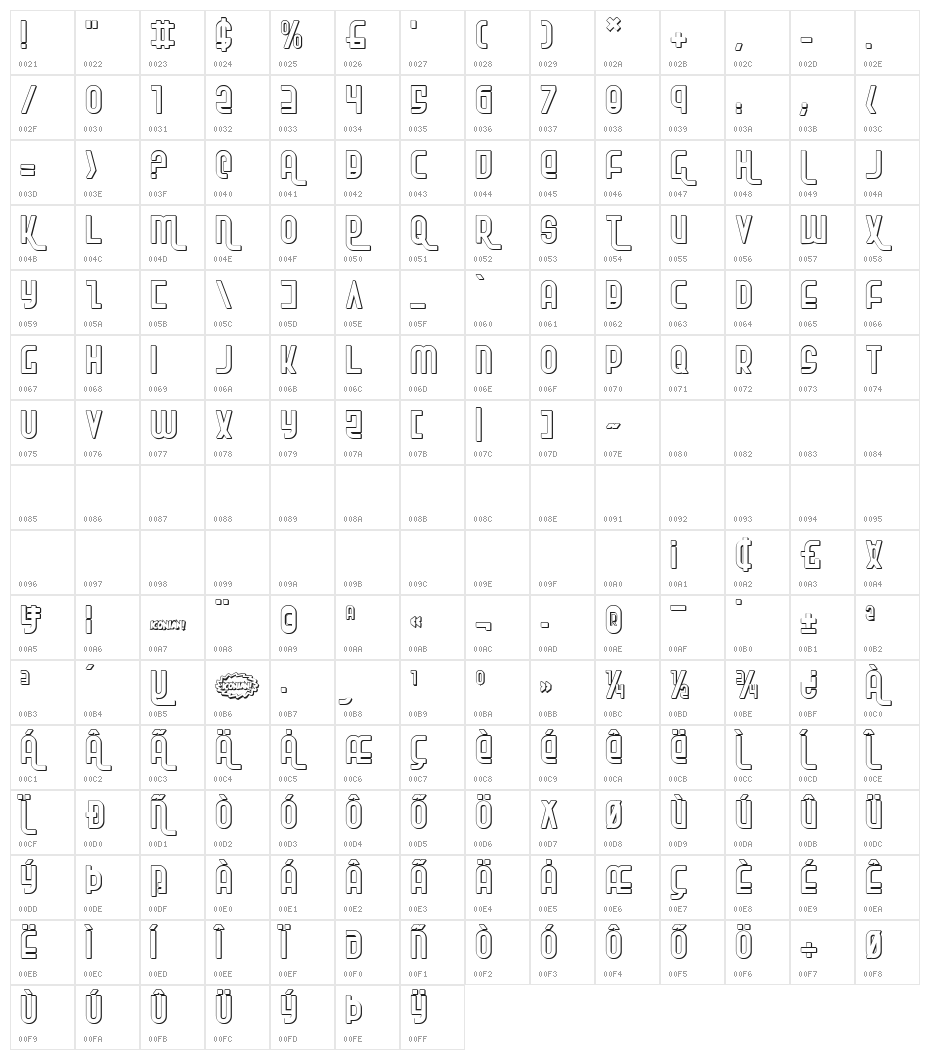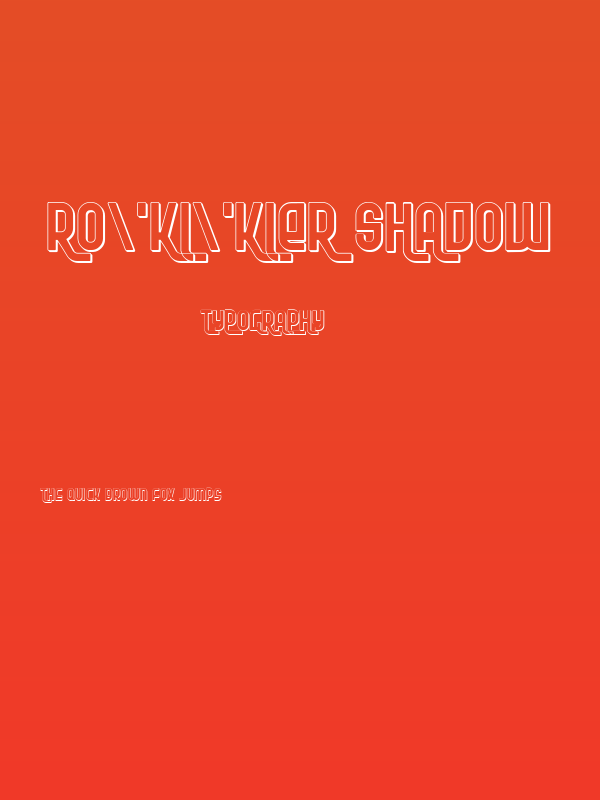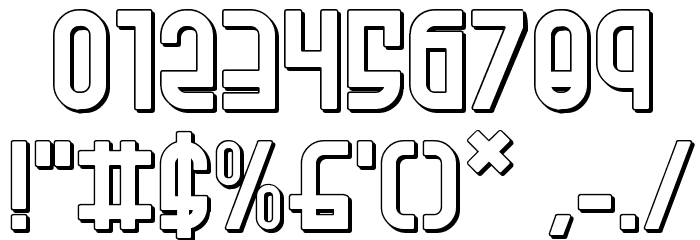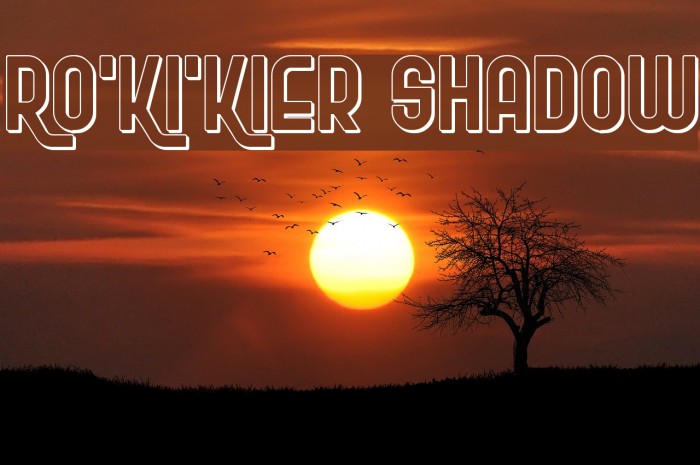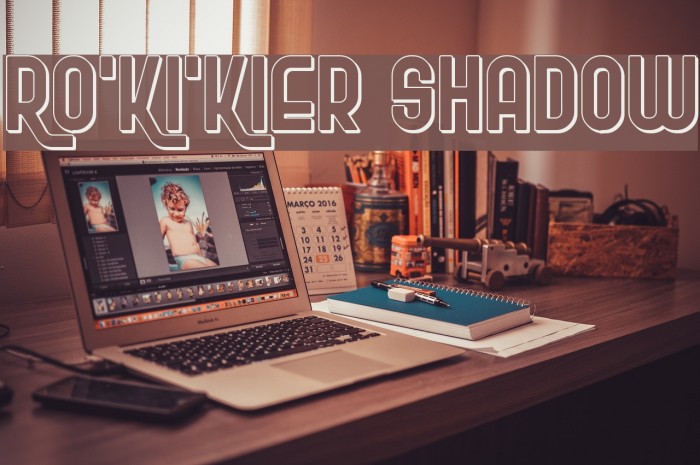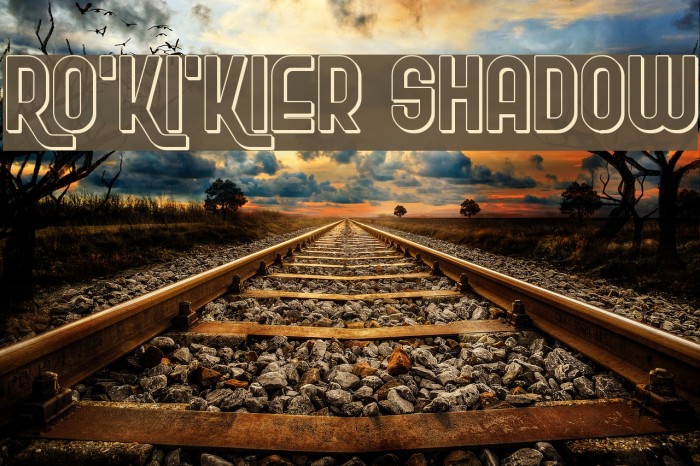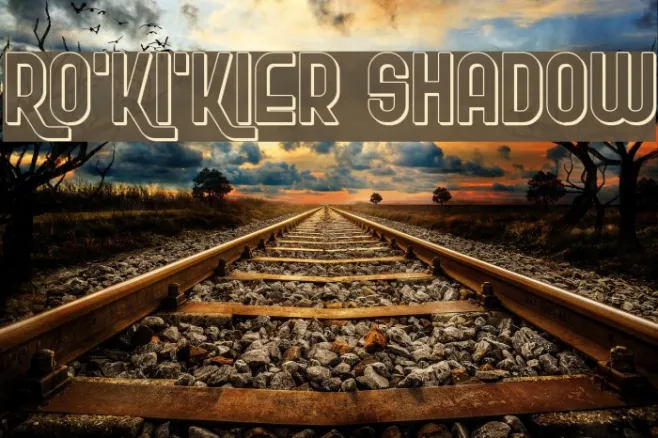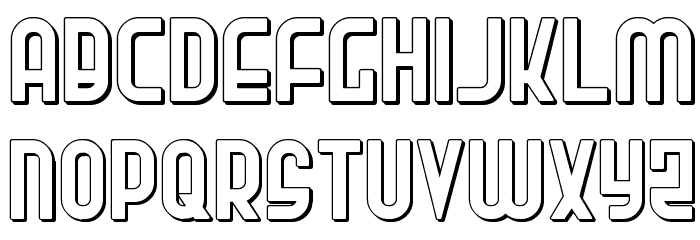
Ro'Ki'Kier Shadow Font
Ro'Ki'Kier Shadow Description
This font features a bold, geometric design with a distinct shadow effect that gives it a three-dimensional appearance. The characters are outlined with a consistent thickness, creating a striking visual impact. The uppercase and lowercase letters maintain a uniform style, with rounded edges and a futuristic aesthetic. The numbers and special characters are designed to match the overall theme, ensuring cohesion across all elements. This font's unique style makes it ideal for projects that require a modern and eye-catching look.